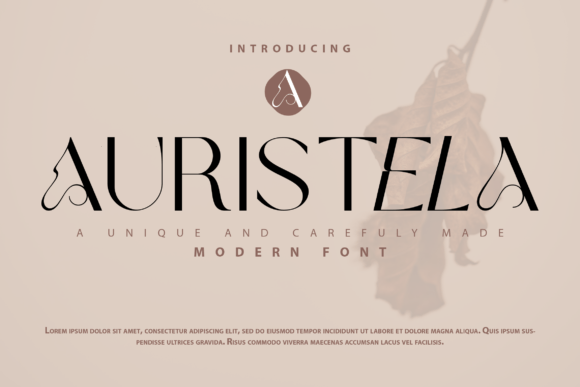
The Auristela Font: A Modern Sans-Serif Gem for Creative Projects
I’ll never forget the time I was working on a wedding invitation design project, and I just couldn’t seem to find the perfect font. My client wanted something modern, elegant, and highly legible, but not too fancy. I spent hours scouring the internet, trying out different fonts, but none seemed to fit the bill. That was until I stumbled upon Auristela, a beautiful modern sans-serif font that has since become a staple in my design toolkit.
Auristela: The Perfect Font for Creative Projects
Auristela is a modern sans-serif font that is authentic and suitable for many of your visual needs, like invitations, weddings, greeting cards, branding materials, business cards, quotes, posters, and more! Its clean lines, elegant curves, and highly legible design make it the perfect choice for any project that requires a touch of sophistication and style.
An Honest Review of Auristela
What I Love About Auristela ✨
- ✅ Highly legible: Auristela is easy to read, even at small font sizes.
- ✅ Versatile: This font is suitable for a wide range of projects, from formal invitations to social media graphics.
- ✅ Elegant: Auristela’s modern design and clean lines make it perfect for projects that require a touch of sophistication.
- ✅ OpenType features: Auristela supports a range of OpenType features, including stylistic alternates and glyphs.
While Auristela is an excellent font, it’s not perfect. Here are a few things to keep in mind:
- ⚠️ Limited language support: Auristela is designed for English and other Western languages, so it may not be suitable for projects that require support for non-Western languages.
- ⚠️ Not ideal for body text: While Auristela is highly legible, it’s not the best choice for long blocks of body text. It’s better suited for headlines, titles, and short paragraphs.
The Backstory of Auristela
Auristela was designed by a team of typographers who wanted to create a modern sans-serif font that was both elegant and highly legible. The font was inspired by classic sans-serif fonts like Helvetica and Futura, but with a unique twist. The designers of Auristela wanted to create a font that was perfect for creative projects, from formal invitations to social media graphics.
Q: What is Auristela?
A: Auristela is a modern sans-serif font that is authentic and suitable for many of your visual needs.
Q: What languages does Auristela support?
A: Auristela supports English and other Western languages.